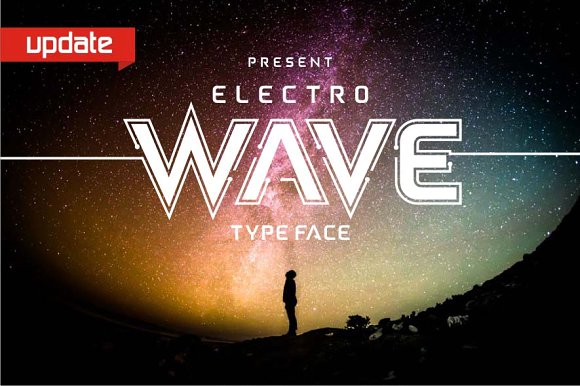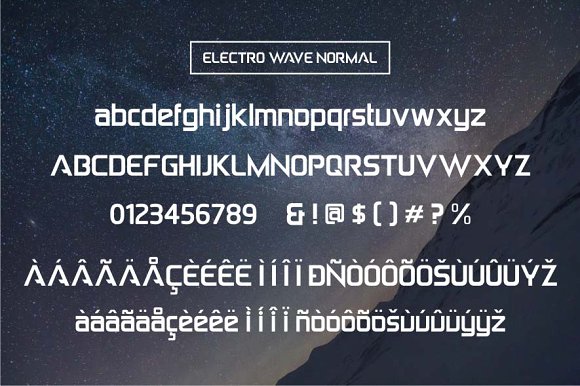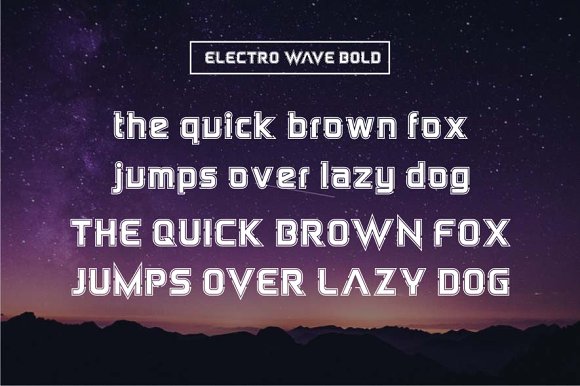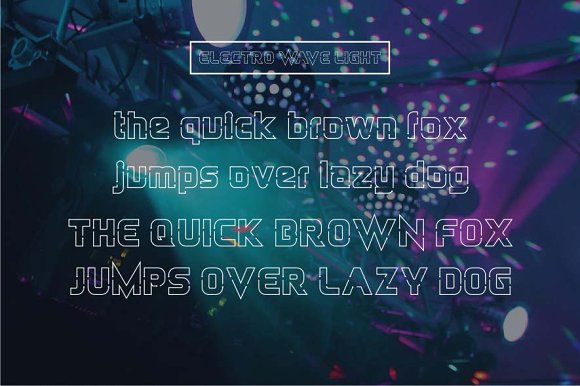
Electro Wave Font
About the Electro Wave Font
Elevate your designs with Electro Wave Font, a font that combines sophistication with readability. Electro Wave is a modern, stylish and futuristic font created by Jamalodin.
The Electro Wave font comes in 4 variations:
Electro Wave Regular
Electro Wave Bold
Electro Wave Light
Electro Wave Thin
Electro Wave excels in headline applications, short text blocks on posters, and branding projects requiring a modern, impactful feel. Its strong geometric forms are well-suited for technology-related brands, futuristic concepts, and edgy fashion designs. However, its low x-height makes it less suitable for body text or UI elements requiring high readability.
Pairing Electro Wave with a clean sans-serif like Open Sans for body copy creates excellent contrast and readability. For a more playful feel, consider pairing it with a rounded geometric sans-serif. A serif like Merriweather could add a touch of sophistication to more formal applications.
Electro Wave possesses a bold, futuristic personality. Its sharp lines and geometric construction convey a sense of energy and modernity. The varied weights allow for flexibility in achieving different levels of impact within a single project.
Electro Wave Font Usage Examples
Electro Wave Font Example